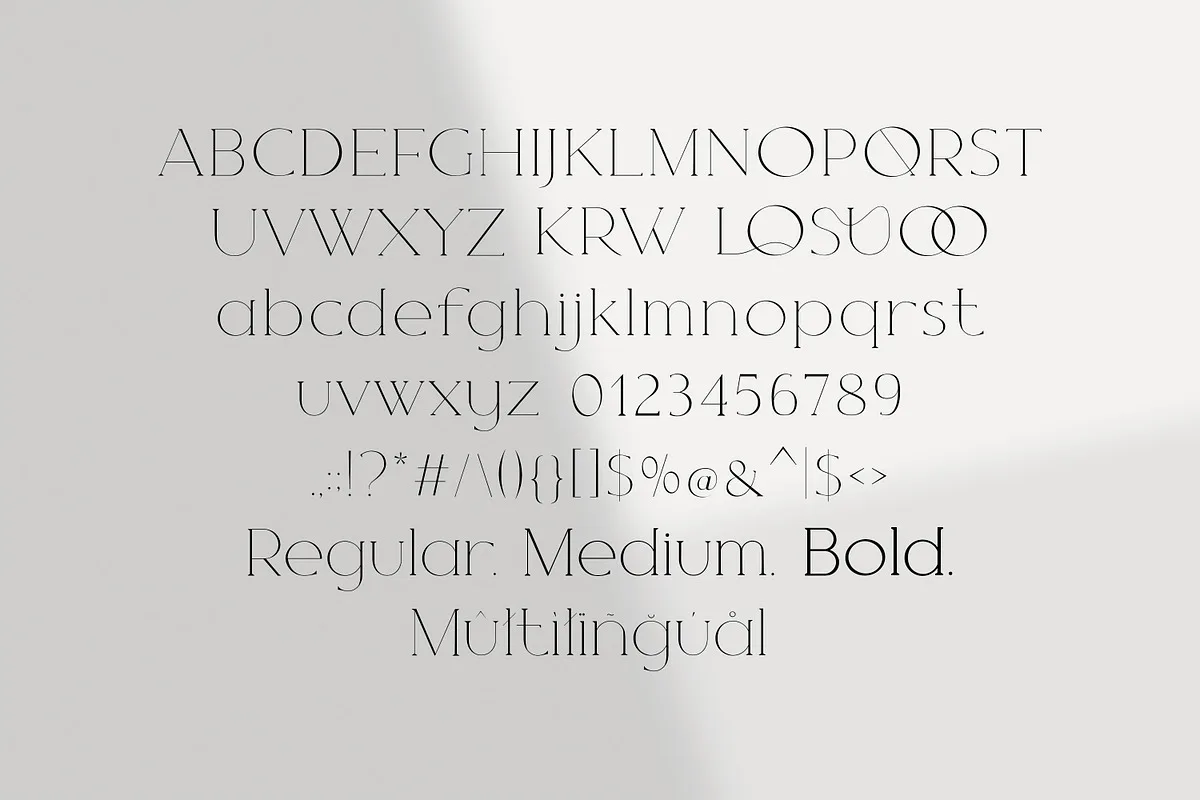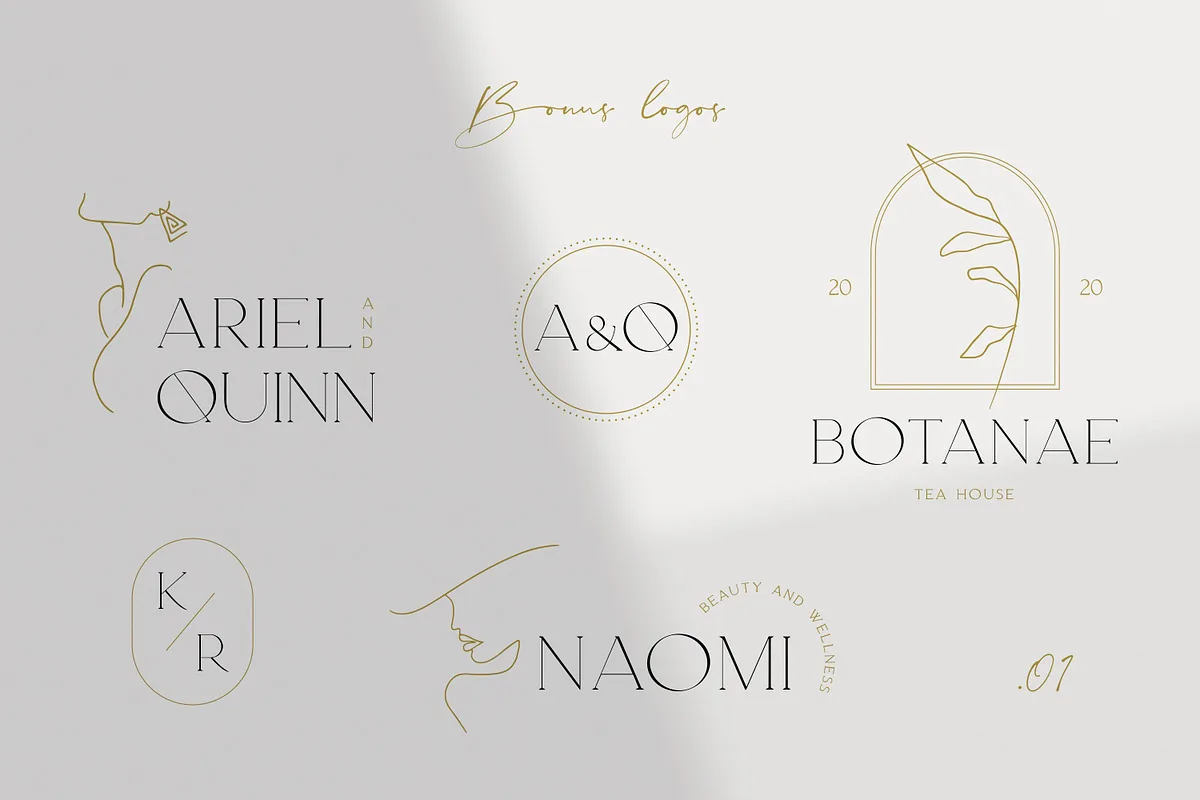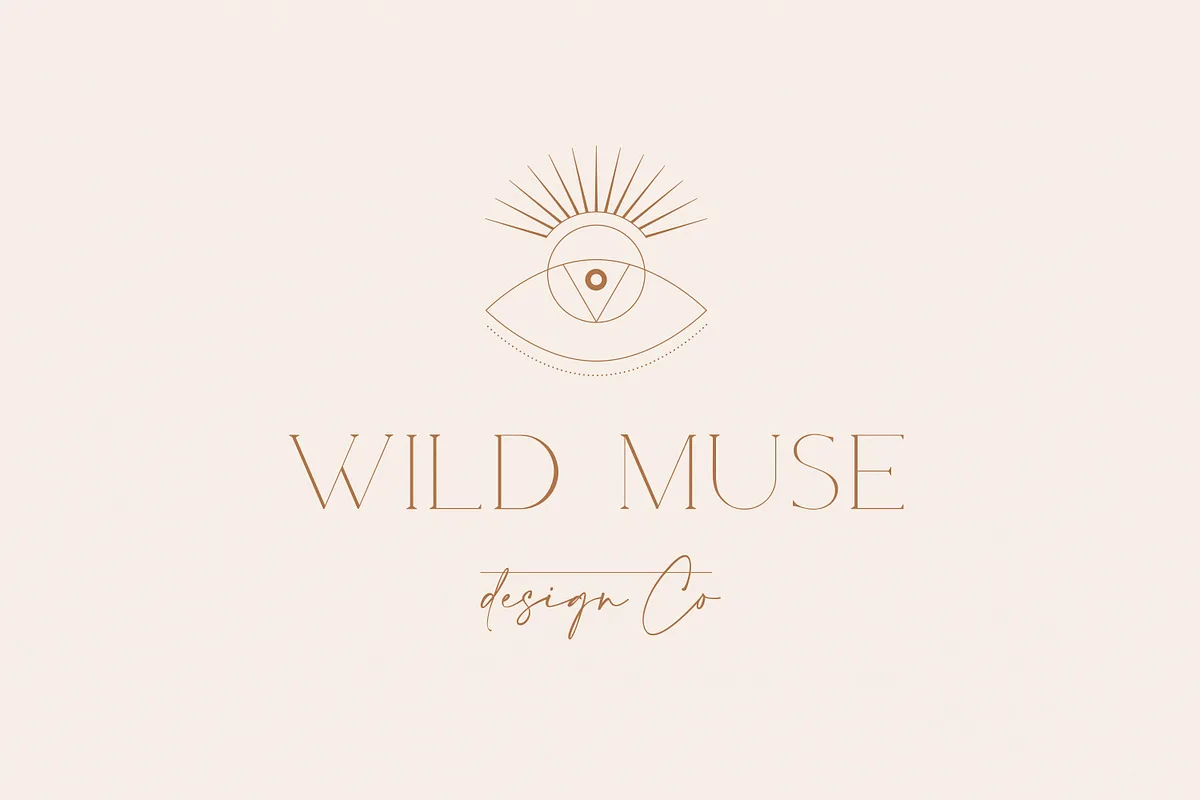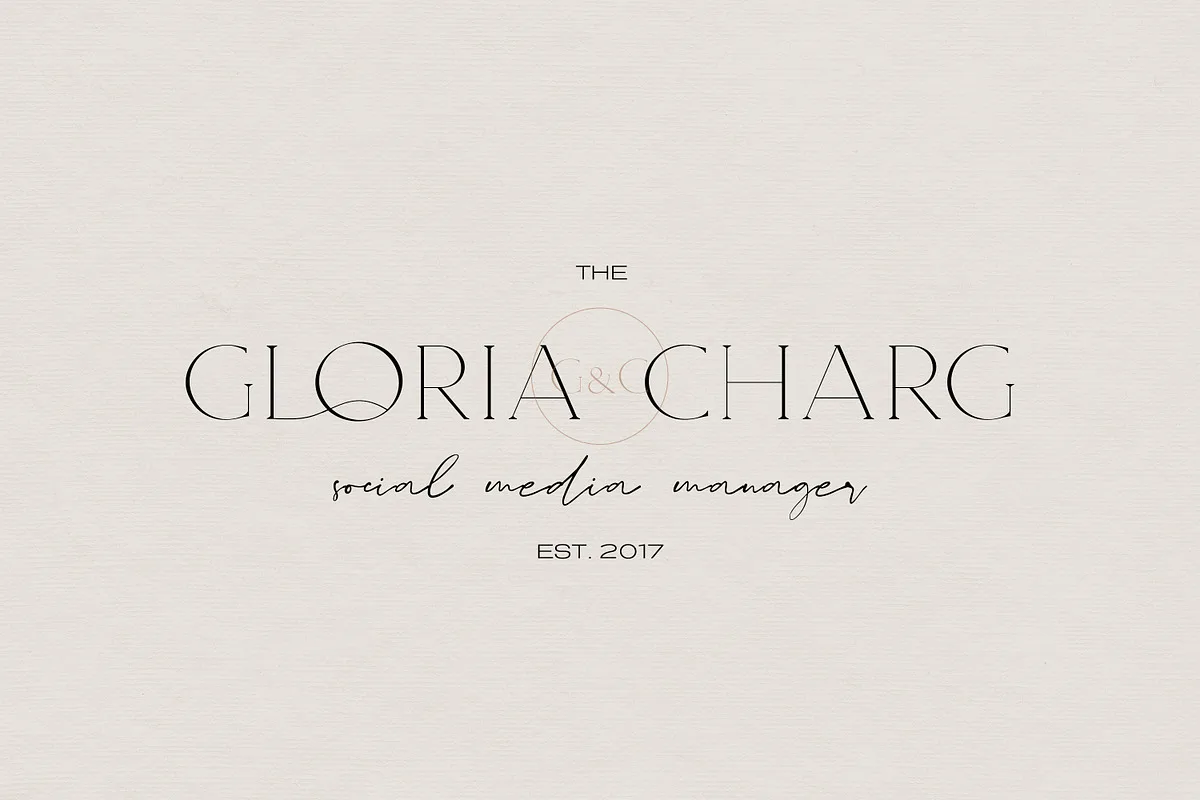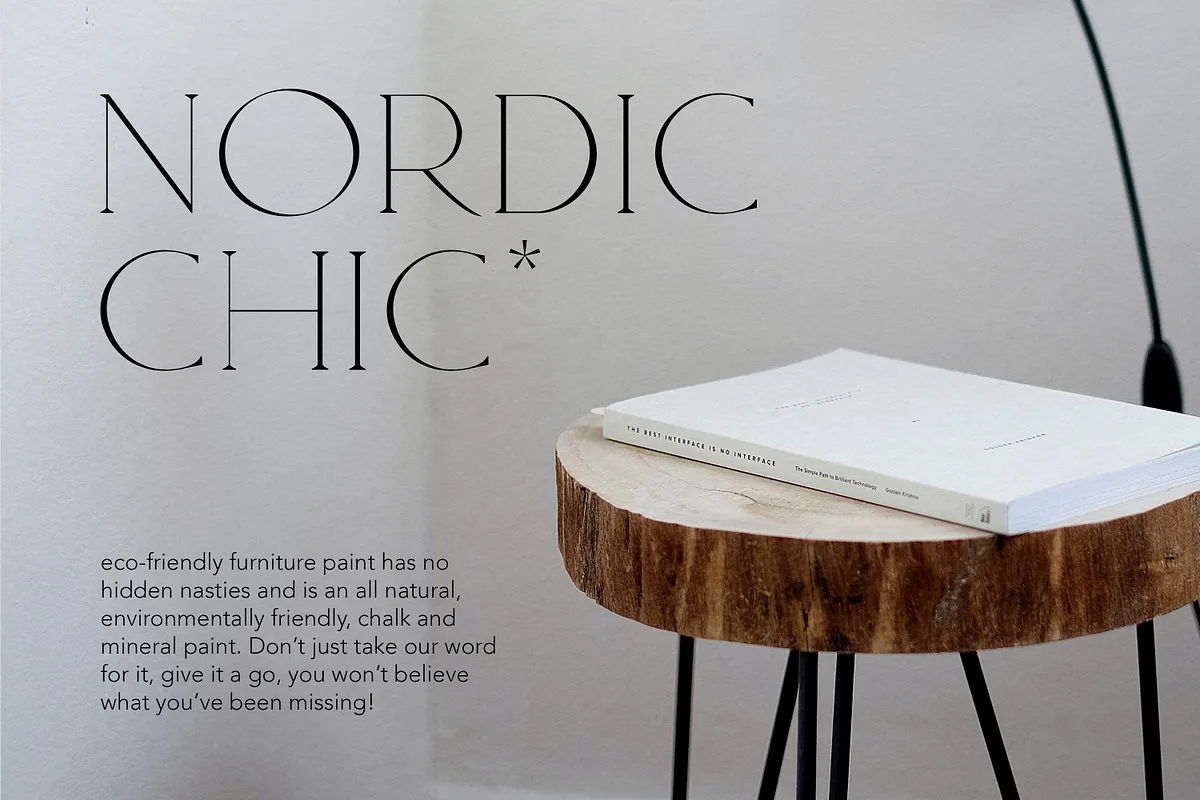
Magnolia is a modern serif typeface. Clean, delicate, classic. It is flexible for any style of graphic design, perfect for logos, headlines, magazines, body text, quotes, and more.
Magnolia Serif Font